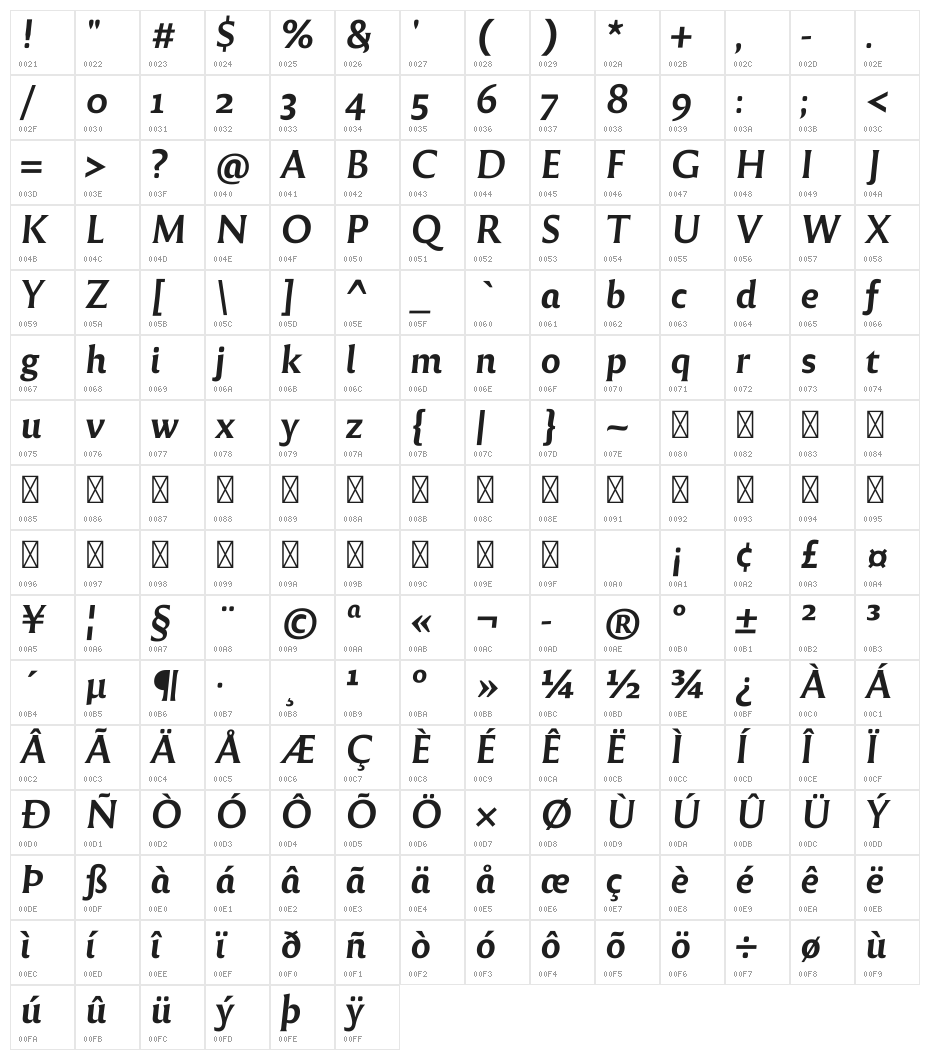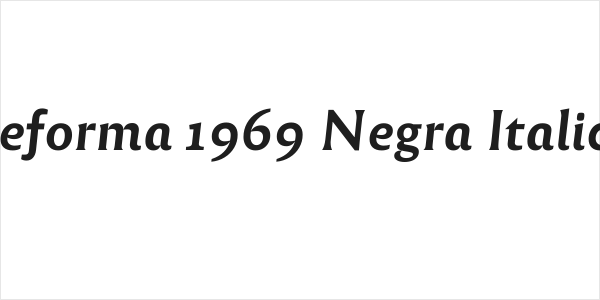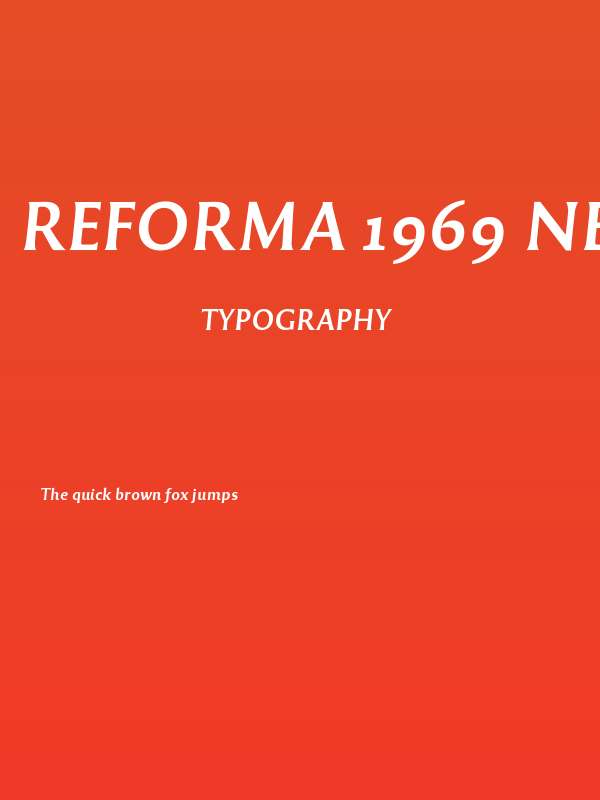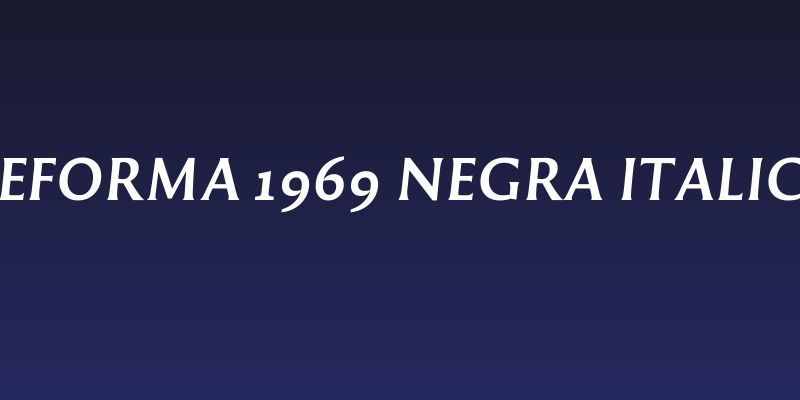
Reforma 1969 Negra Italica Font
Reforma 1969 Negra Italica Description
This font exhibits a bold and dynamic style with a pronounced italic slant, giving it a sense of movement and energy. The characters are well-defined with a high contrast between thick and thin strokes, enhancing readability while maintaining a strong visual impact. The serifs are sharp and slightly curved, adding a touch of elegance and sophistication. The overall design is modern yet retains a classic appeal, making it versatile for various applications. The spacing between characters is normal, ensuring clarity and legibility across different sizes.
| Use Case | Headlines, Logos, Editorial design |
| Proposed Projects | Ideal for editorial design, branding projects, and impactful headlines. |